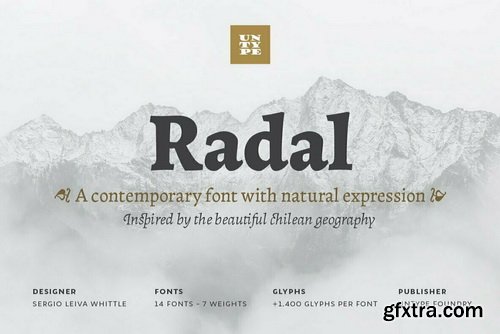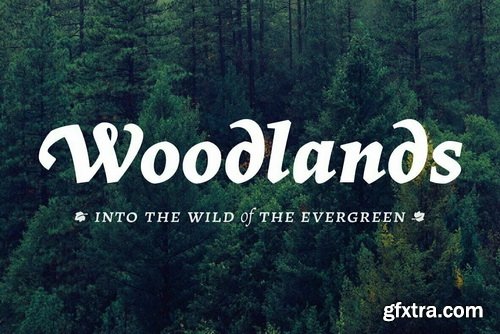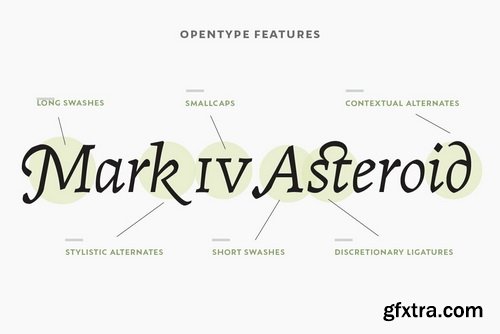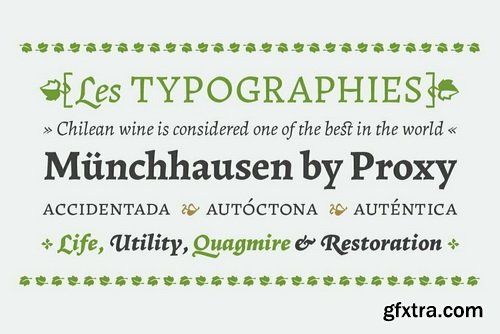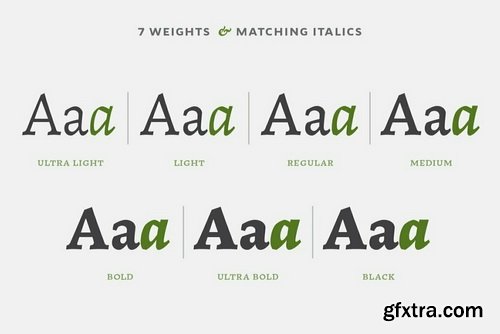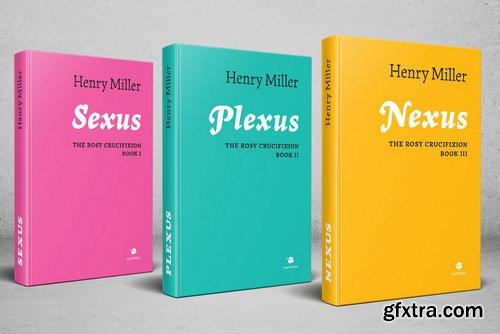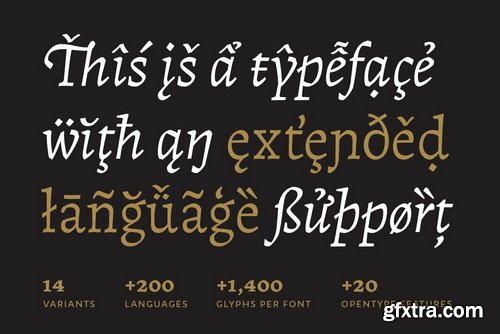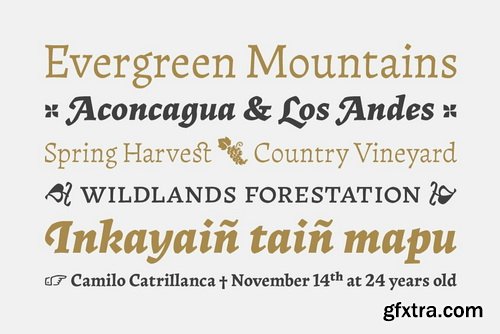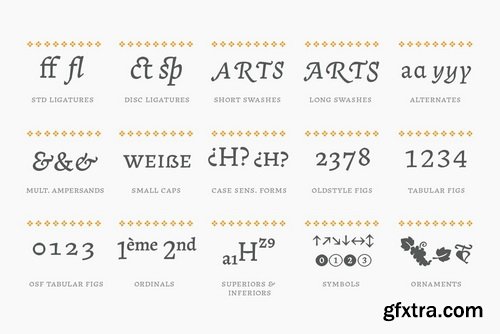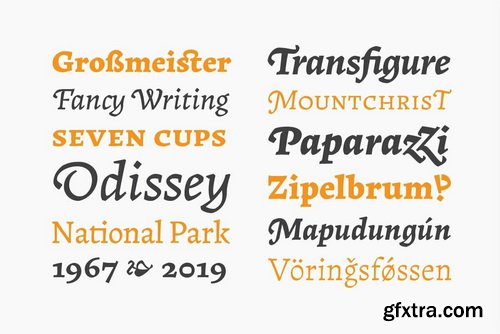
Radal 字体家族
Radal looks extremely well balanced in long text settings at the time that embellish the page with a scent of calm wilderness. On display use, shines on its irregular nature plenty of unexpected forms and counter forms. The Radal family is composed by 7 styles plus matching italics and a set of over 1400 glyphs (1600 on italics) full of ligatures, alternates, swashes, ornaments, small caps, symbols and a complete arsenal of typographic resources for your delight.